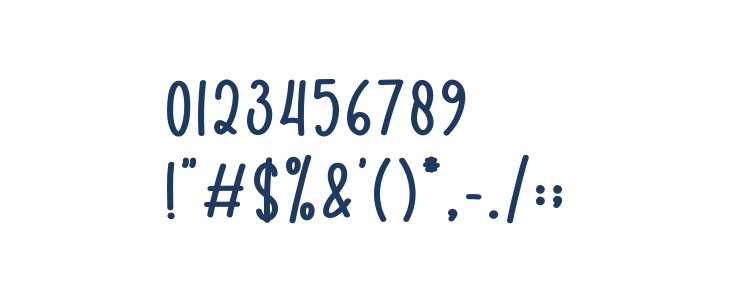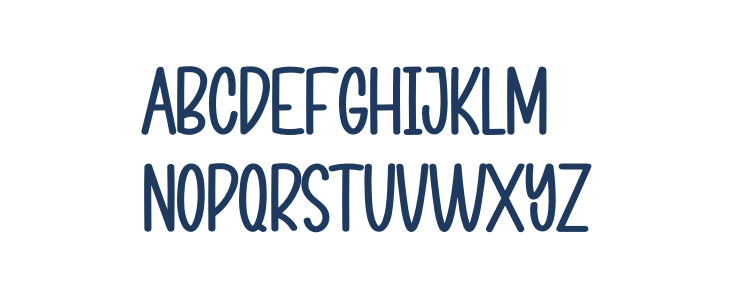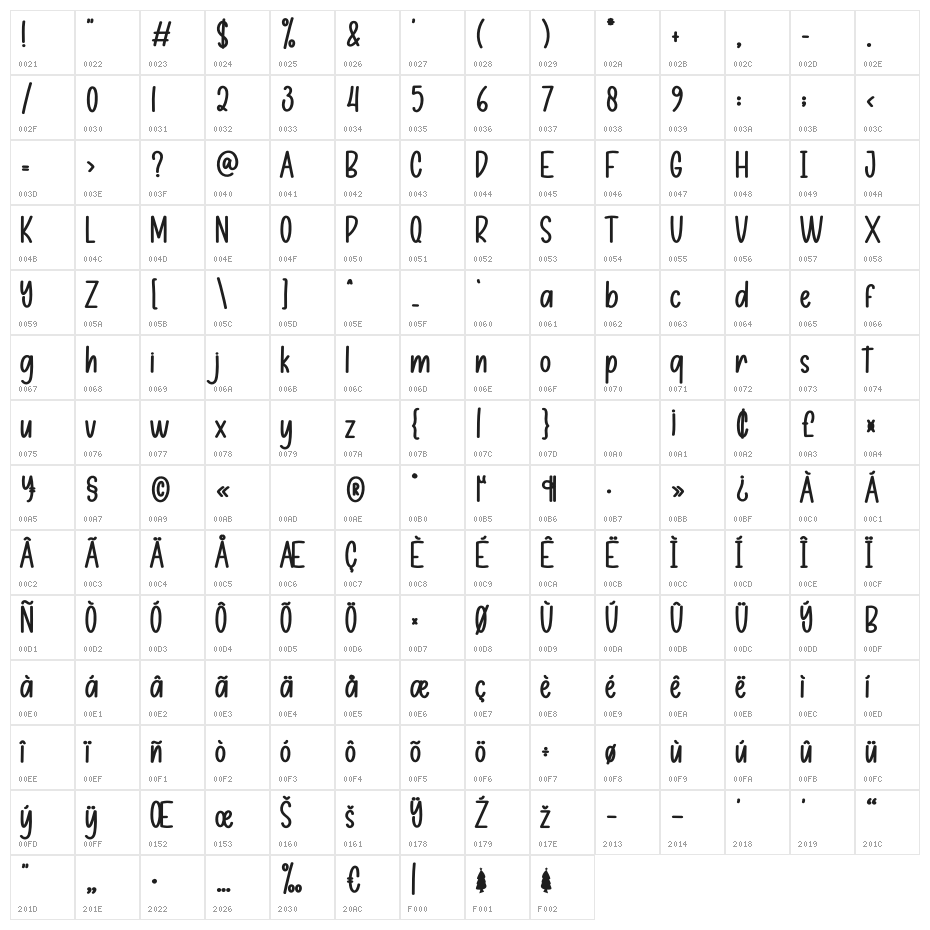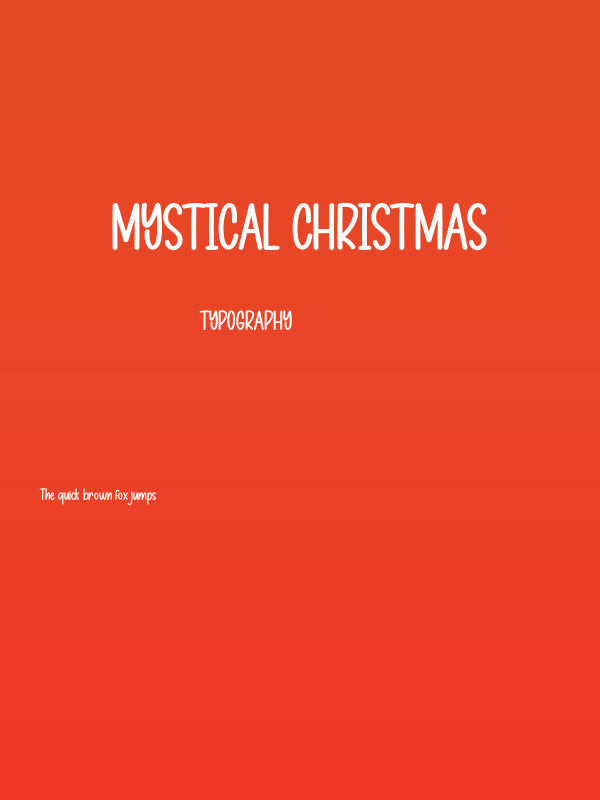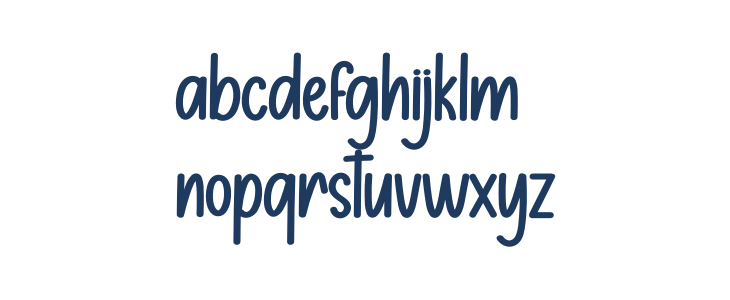
Mystical Christmas Font
Mystical Christmas Description
A playful, handwritten sans-serif font with tall, narrow letters and rounded terminals. The strokes are consistent in width, giving a casual and friendly appearance. The characters are slightly irregular, enhancing the hand-drawn feel.
| Overall Style | Decorative, Playful, Casual |
| Use Case | Headlines, Posters, Greeting cards, Social media |
| Proposed Projects | Greeting cards, holiday invitations, children's books, festive posters, social media graphics. |